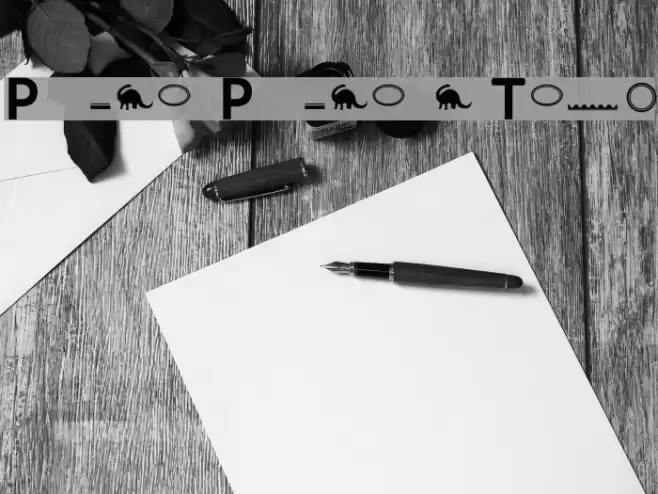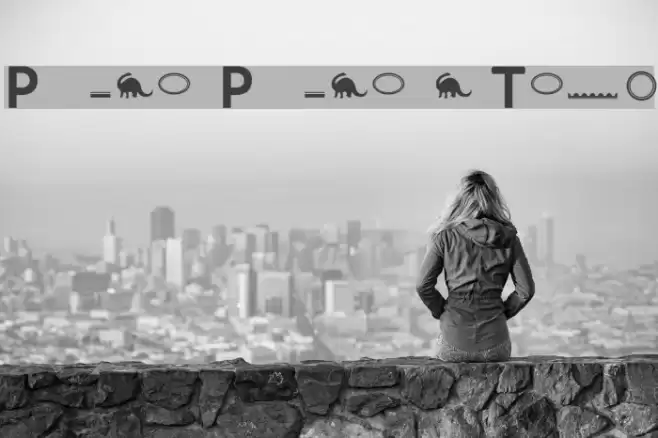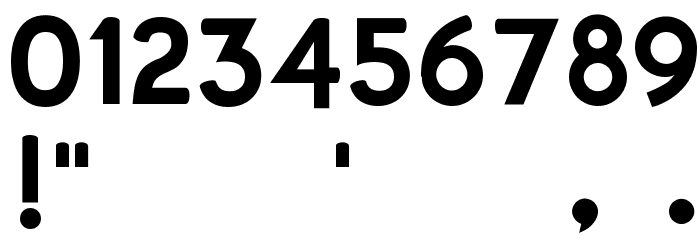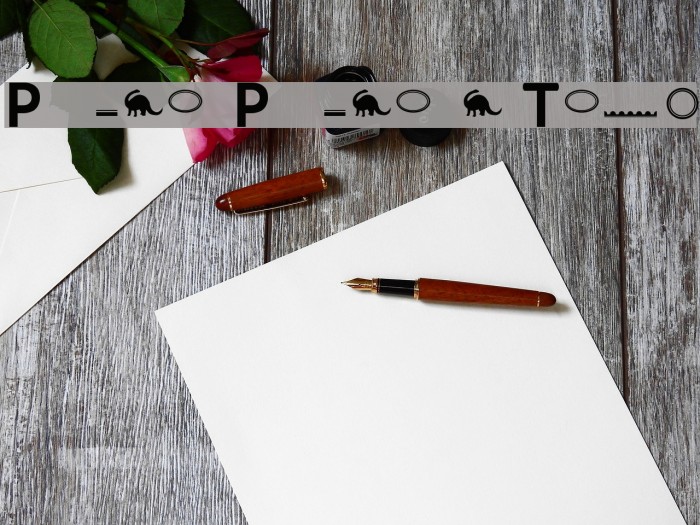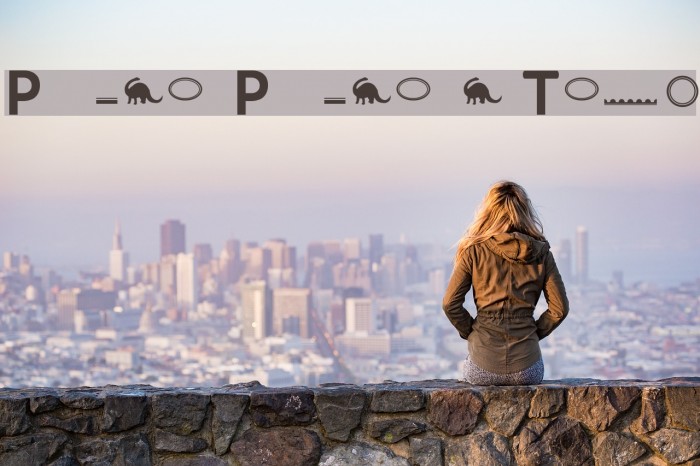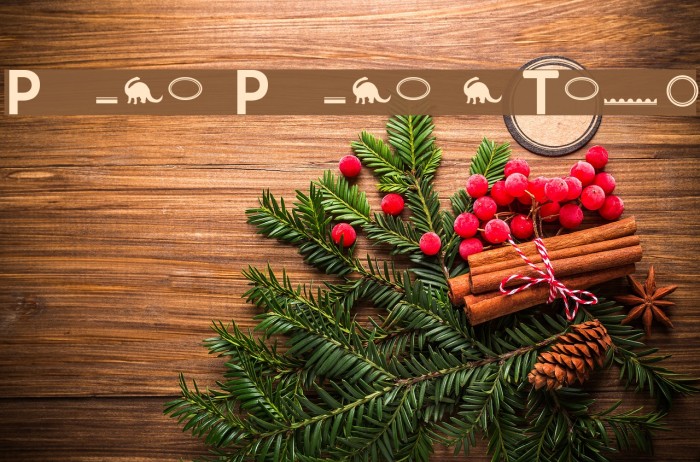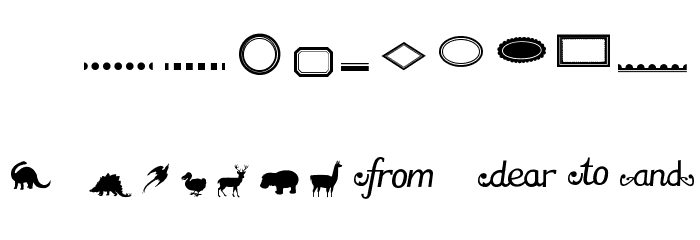
Patagonian Titles Font
Patagonian Titles Description
This font features a bold, sans-serif style with clean and modern lines. The uppercase letters are uniform in height and width, giving a balanced and structured appearance. The numbers are similarly bold and consistent, making them easy to read. Special characters and punctuation are included, maintaining the same boldness and clarity. The font also includes decorative elements and icons, such as animals and geometric shapes, adding a unique and playful touch. These elements make it versatile for both text and graphic design projects.
A bold, modern sans-serif font with decorative icons from Sans Serif fonts.
- Proposed Projects: Ideal for branding, logos, posters, and packaging design where a modern and bold statement is needed.